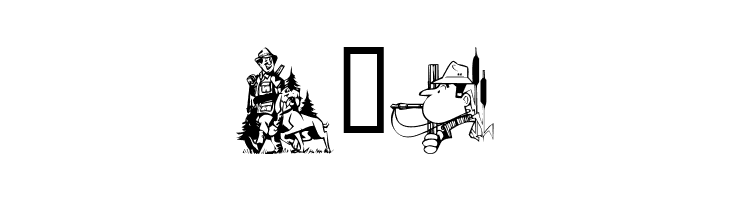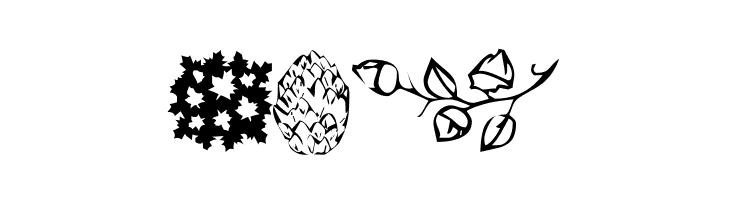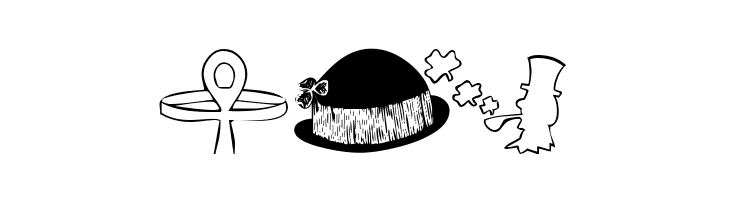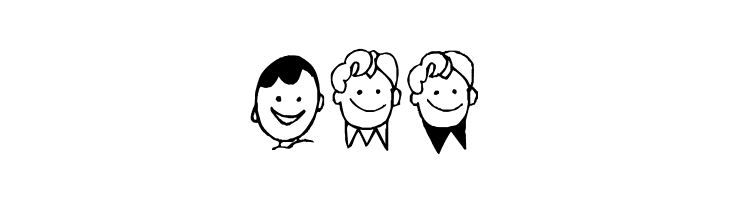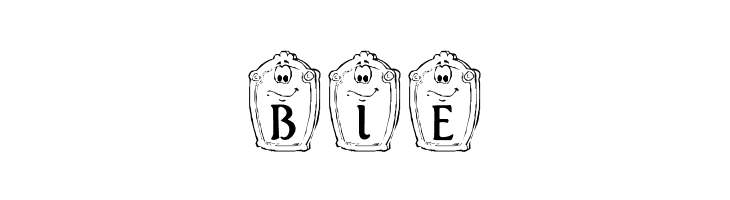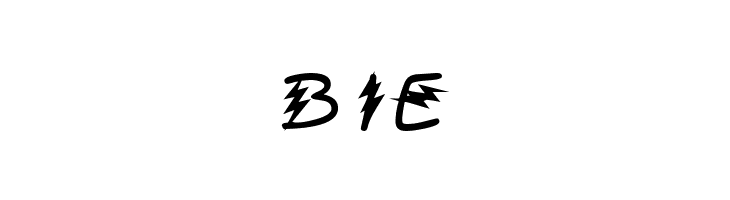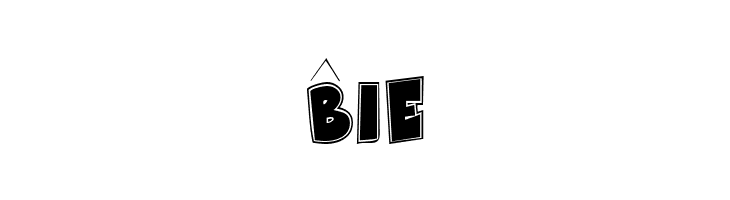
Hand-drawn Christmas dingbat font with festive icons.
A decorative font with drink-themed illustrations, perfect for playful designs.
A collection of hunting-themed illustrations, not a traditional font.
A decorative design using peace symbols in a flag motif.
A decorative font with autumn-themed illustrations and motifs.
A decorative collection of Irish-themed symbols and icons.
Hand-drawn cartoon boy faces in a playful dingbat style.
A decorative font with letters encased in ornate mirror frames, perfect for whimsical designs.
A bold, electrifying font with sharp, angular lines and a lightning bolt motif.
A bold, playful font with cartoonish, cat-themed accents.